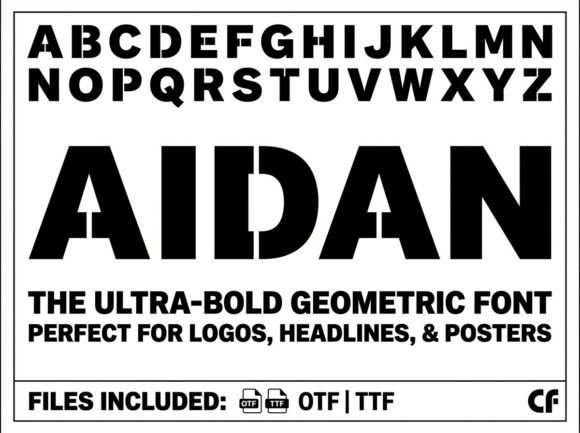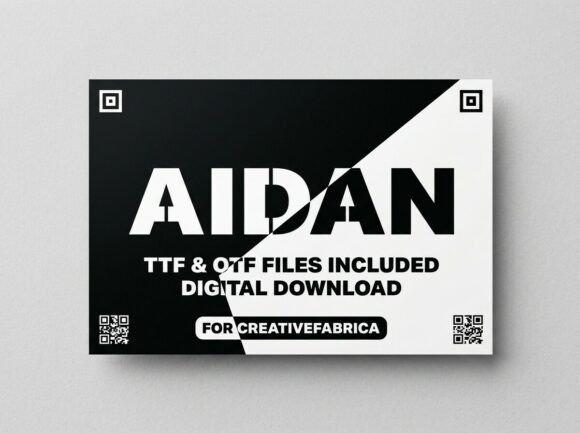
Aidan Font: A Stunning Decorative Display Font for Creative Minds
Are you tired of using the same old fonts for your designs? Do you want to make a statement and break away from the ordinary? Look no further than Aidan Font, a unique and artistic decorative display font that’s designed to be the center of attention. In this article, we’ll explore the features and benefits of Aidan Font, and why it’s the perfect choice for creators who want to add a touch of elegance and sophistication to their designs.
What is Aidan Font?
Aidan Font is a decorative display font that’s specifically designed for high-impact headlines, logos, and decorative initials. This font is an ALL-CAPS (Uppercase Only) display typeface, which means it’s perfect for making a bold statement. With its unique artistic elements and strong visual personality, Aidan Font is sure to grab attention and leave a lasting impression.
Key Features of Aidan Font
- Unique Artistic Elements: Aidan Font features unique artistic elements that set it apart from other fonts. Each letter is a work of art, making it perfect for decorative initials, logos, and headlines.
- Strong Visual Personality: This font has a strong visual personality that’s sure to make a statement. Whether you’re designing a logo, headline, or packaging, Aidan Font is sure to grab attention.
- Versatile: Aidan Font is versatile enough for bold headlines, artistic logos, and creative packaging, while maintaining a professional and polished finish.
Why Choose Aidan Font?
- Stand Out from the Crowd: With Aidan Font, you’ll be able to create designs that stand out from the crowd. Its unique artistic elements and strong visual personality make it perfect for making a bold statement.
- Professional and Polished Finish: Despite its decorative nature, Aidan Font maintains a professional and polished finish that’s perfect for businesses and individuals who want to make a good impression.
Who is Aidan Font for?
Aidan Font is perfect for:
- Graphic Designers: If you’re a graphic designer looking for a unique and artistic font to add to your collection, Aidan Font is a great choice.
- Log designers: If you’re designing a logo for a business or brand, Aidan Font is perfect for creating a bold and eye-catching design.
- Crafters: If you’re a crafter who loves to create handmade products, Aidan Font is a great choice for adding a personal touch to your designs.